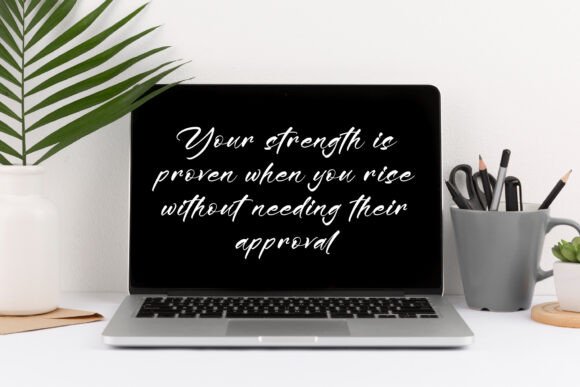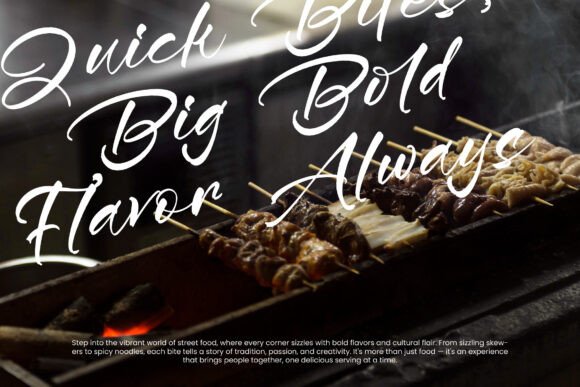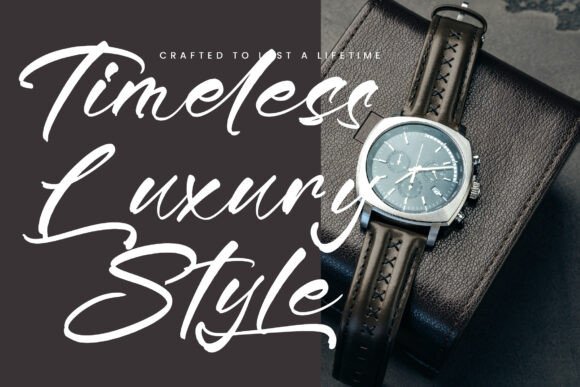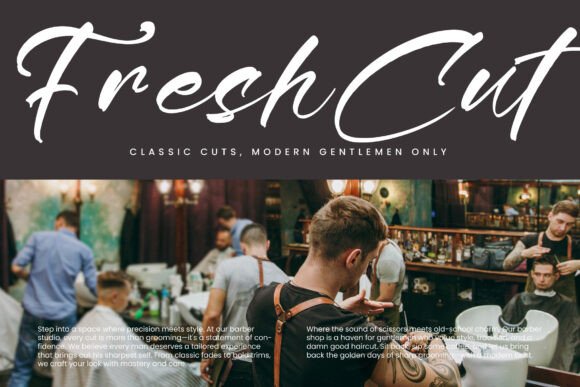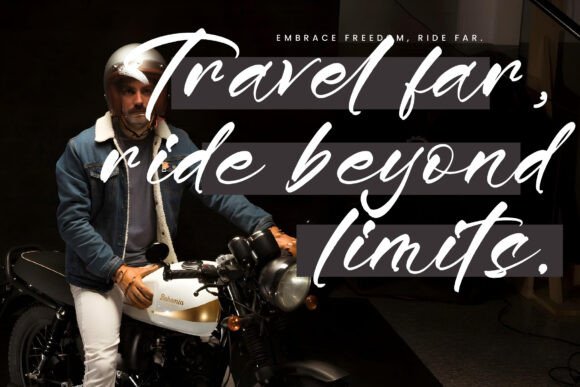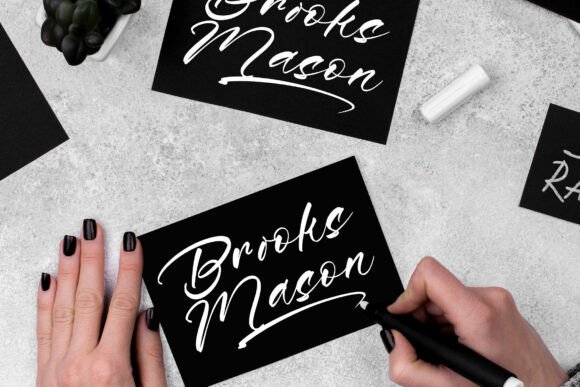
Introduction to Minute Elegant Font
As a designer, you know that the perfect font can elevate your project from ordinary to extraordinary. Have you ever been in the middle of a creative session, frantically searching for the perfect script font to give your design that extra oomph? We’ve all been there. That’s why we’re excited to introduce you to the Minute Elegant Font, a stunning modern handwritten script font that’s sure to make your designs stand out.
With its high-quality, elegant design, the Minute Elegant Font is perfect for a wide range of creative projects, from logos and branding to homewares designs and product packaging. Whether you’re looking for a font to add a touch of luxury to your designs or simply want to give your projects a premium feel, the Minute Elegant Font is an excellent choice. Plus, it’s free to download, making it an invaluable resource for designers of all levels.
So, what sets the Minute Elegant Font apart from other fonts on the market? For starters, its transparent background makes it easy to use with any design, and its high-quality design ensures that it will always look great, even at large sizes. Whether you’re working on a complex project or simply want to add a touch of elegance to your designs, the Minute Elegant Font is a valuable addition to any designer’s toolkit.
Key Features of Minute Elegant Font
- High-quality, elegant font design perfect for creative projects, such as invitations, posters, and brochures.
- Transparent background, making it easy to customize and overlay on various design elements.
- Includes a range of characters, including uppercase and lowercase letters, numbers, and special characters.
- Designed with a clean and sophisticated aesthetic, ideal for use in high-end design projects.
Honest Review: Minute Elegant Font
I recently stumbled upon the Minute Elegant Font and I must say, it’s a game-changer for any creative project. With its high quality and sleek design, it’s perfect for adding a touch of elegance to your next design.
- ✨ High quality design that looks great on any background, even a transparent background.
- ✨ Great for creating a cohesive look across multiple design elements.
- ⚠️ Limited font sizes and styles, which may not be ideal for complex design projects.
- ⚠️ Not suitable for very large or very small text sizes.
Overall, I’m impressed with the Minute Elegant Font and would definitely recommend it as a design resource for any creative project. It’s a great addition to any designer’s toolkit, and the free download is a major perk.
Minute Elegant Font
The Minute Elegant Font is a high-quality design resource perfect for creative projects. It features a unique and elegant style that is sure to elevate your work.
Tips for Getting the Most Out of it
To get the most out of the Minute Elegant Font, use it on a transparent background to create a clean and modern look. You can also experiment with different font sizes and colors to add visual interest to your design.
The Minute Elegant Font is perfect for a variety of creative projects, including business cards, brochures, and websites. It’s also great for creating invitations, menus, and other promotional materials.
Is the Minute Elegant Font suitable for use in digital applications?
Yes, the Minute Elegant Font is designed to be highly legible and clear, making it an ideal choice for digital applications, such as website design, mobile app design, and other interactive projects that require a high-quality design resource.